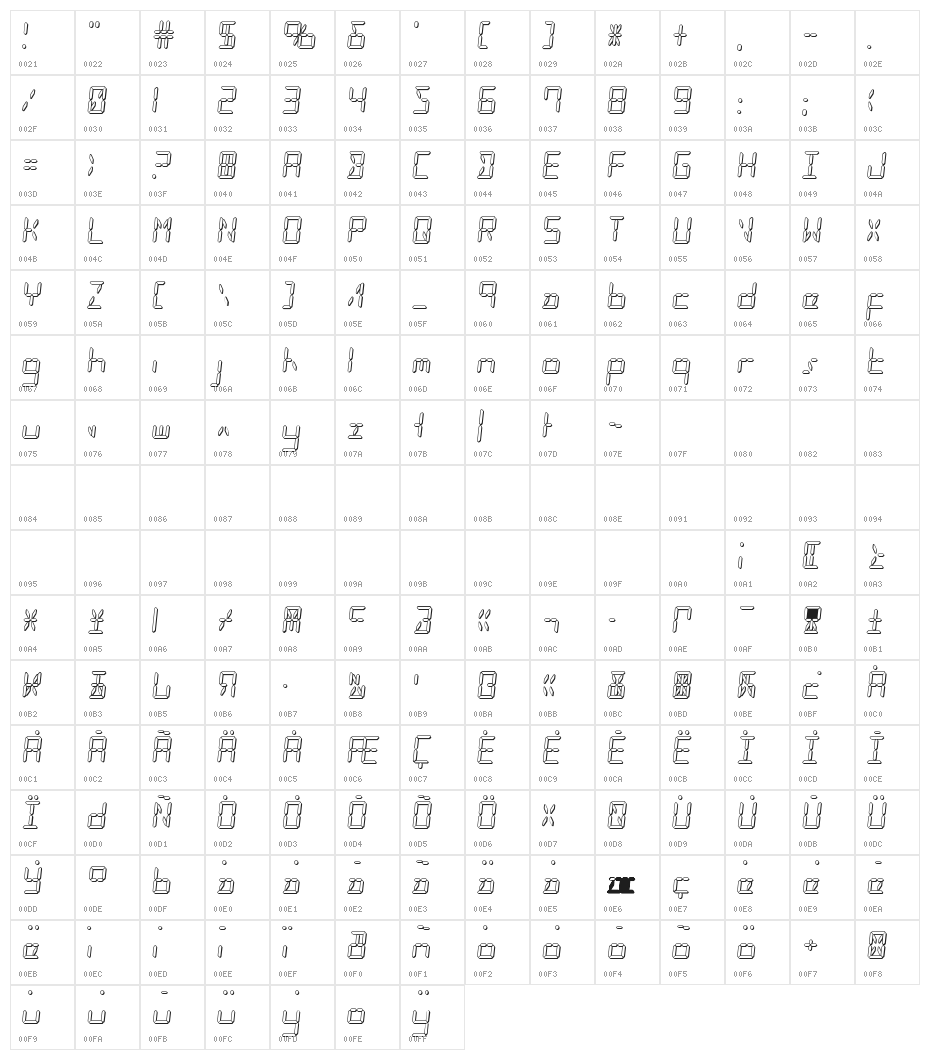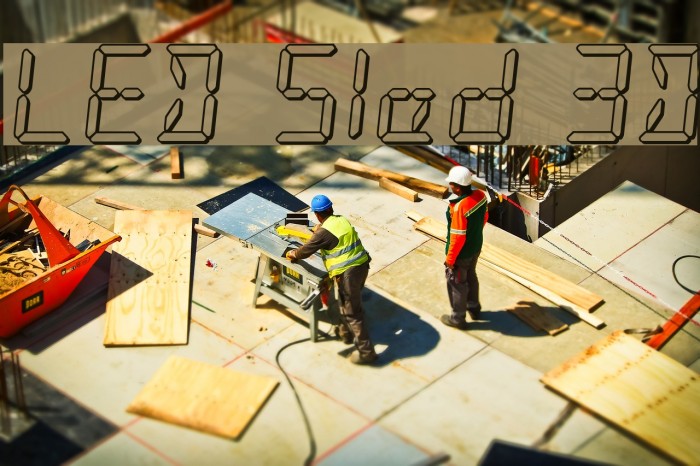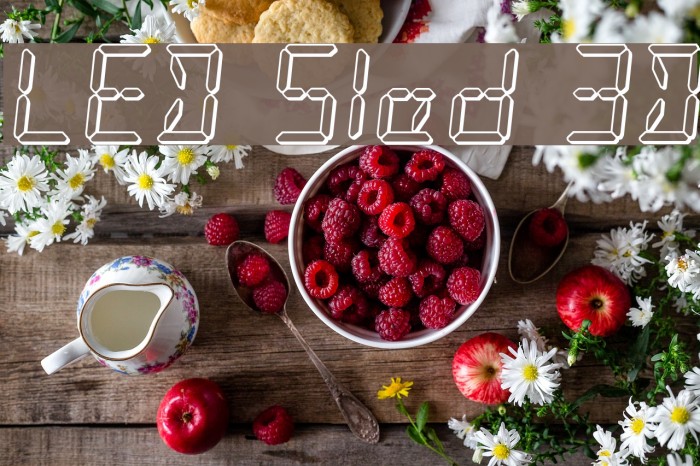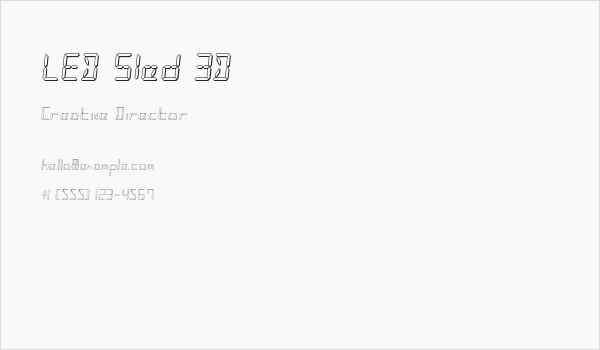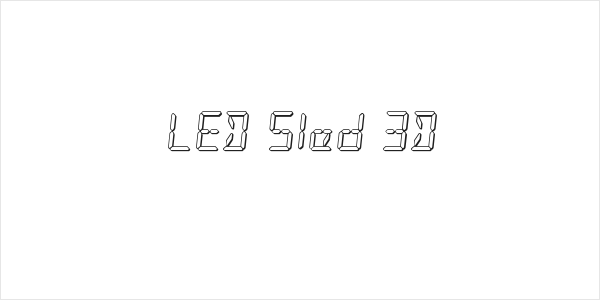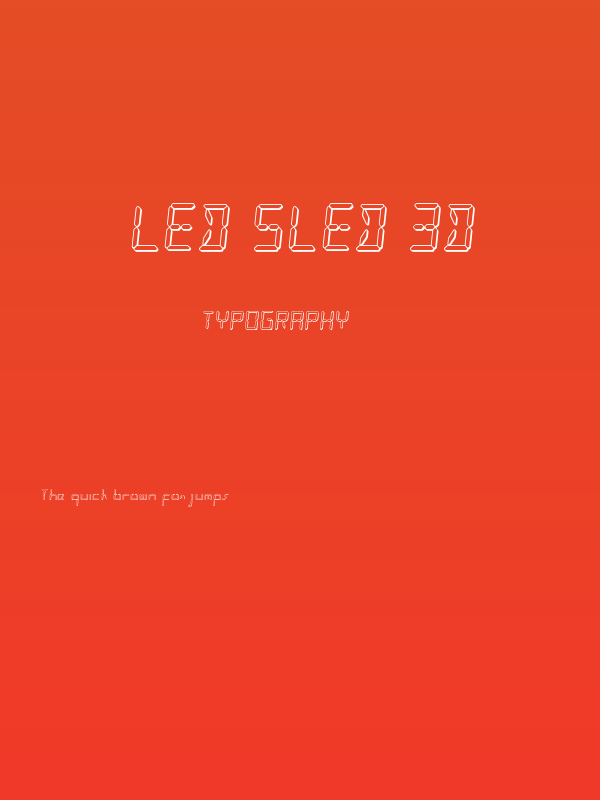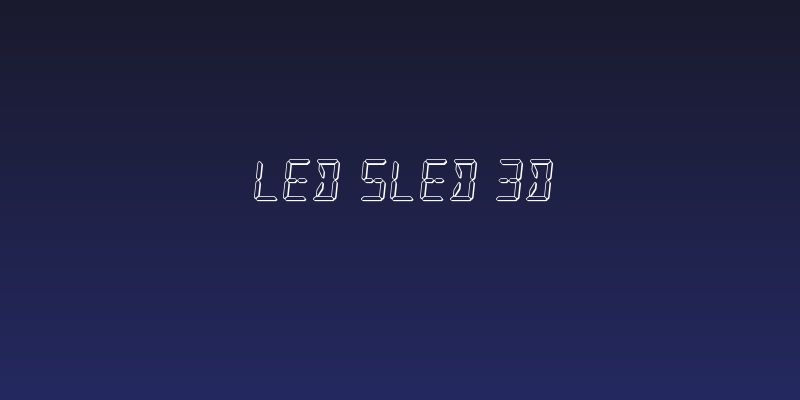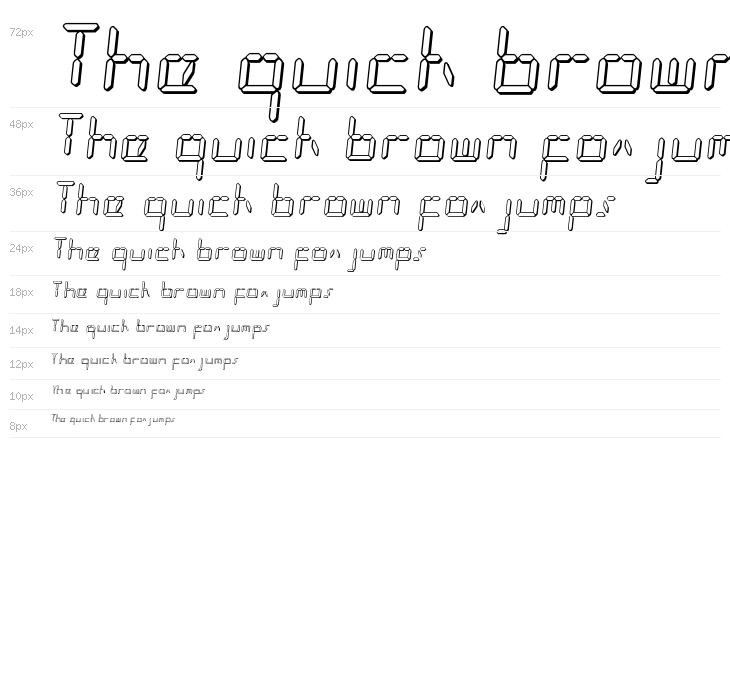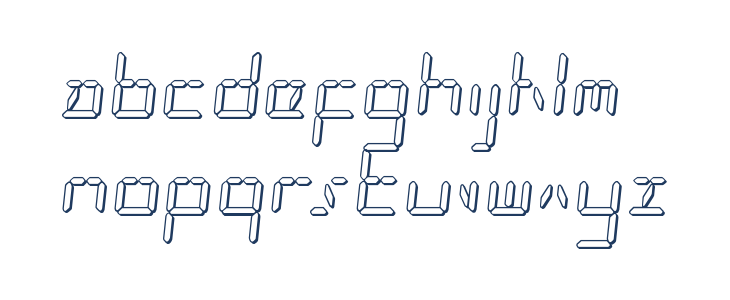
LED Sled 3D Font
LED Sled 3D Description
This font features a unique 3D effect, reminiscent of digital displays and LED screens. Each character is constructed with a series of angular lines and geometric shapes, creating a futuristic and tech-inspired appearance. The design is consistent across both uppercase and lowercase letters, as well as numbers and special characters, maintaining a cohesive look. The font's structure gives it a modern and digital feel, suitable for projects that require a high-tech or sci-fi aesthetic. The characters are well-defined, with a clear distinction between each segment, enhancing readability while maintaining its distinctive style.
| Proposed Projects | Ideal for tech-themed designs, digital interfaces, sci-fi posters, and modern branding. |